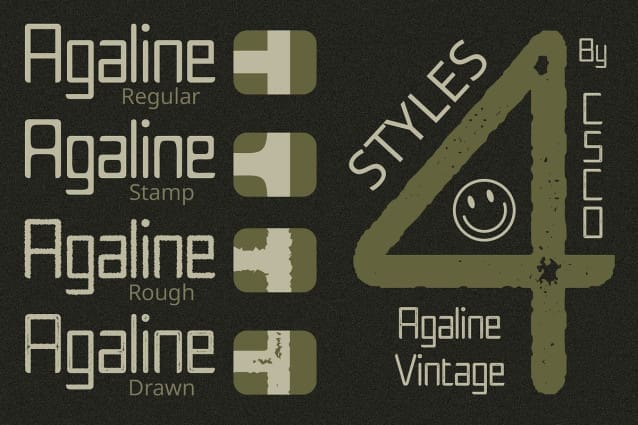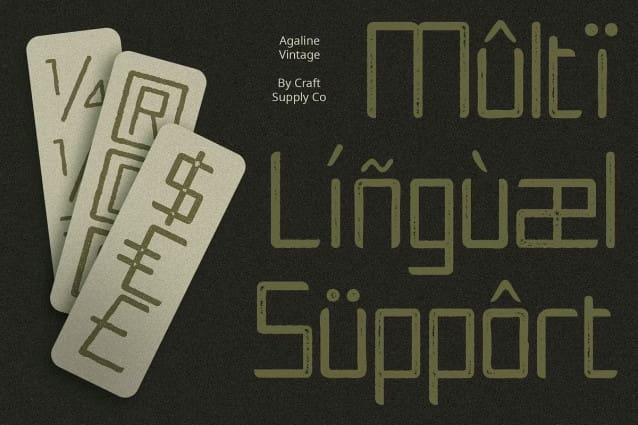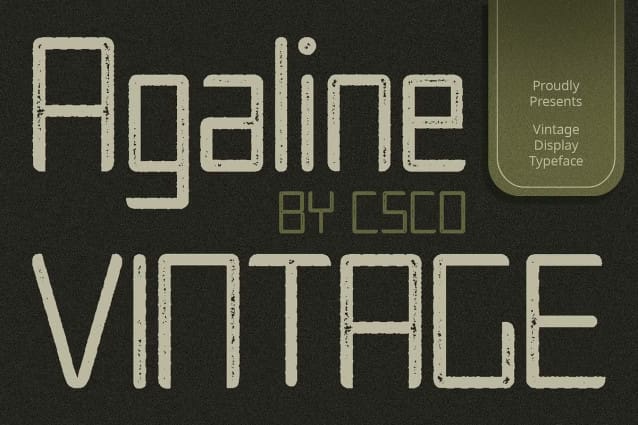
Agaline Vintage Font
Agaline Vintage Font: Retro Charm in Geometric Sans Serif. Geometric Sans Serif Design Agaline Vintage boasts a sleek and modern geometric sans serif design that exudes simplicity and clarity. Its clean lines and minimalistic approach make it suitable for a wide range of design applications.
Low Contrast Appeal With its low contrast style, This font offers a subtle yet striking appearance. The balanced weight distribution ensures legibility while adding a touch of sophistication to any design project.
Vintage Effect Infused with a vintage effect, This font features a stamped, drawn, and rough texture that evokes nostalgia and charm. This unique texture adds depth and character, giving your designs a timeless appeal.
Versatile Application From logos and headlines to packaging and branding, This font is versatile in its application. Its retro charm and geometric simplicity make it ideal for both digital and print projects, adding a touch of vintage elegance to any design.
Timeless Elegance with Modern Simplicity This font combines the sleekness of geometric sans serif design with the charm of vintage texture, resulting in a font that is both timeless and contemporary. With its low contrast appeal and versatile application, Agaline Vintage is sure to enhance any design project with its retro-inspired flair.